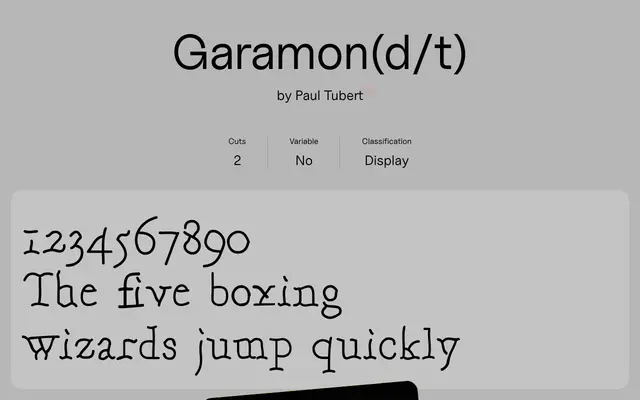
Garamon(d/t)
A two-cut display face by Paul Tubert that plays on the Garamond/Garamont naming dispute, available free under the WTFPL licence.
Paul Tubert's Garamon(d/t) arrives in two cuts and takes its name from the long-standing scholarly argument over whether the typeface we call Garamond should really be attributed to Claude Garamont. The WTFPL licence permits commercial use, modification and redistribution with minimal restrictions. It sits naturally in editorial and display contexts where a historically inflected serif is wanted without the cost of a commercial licence.
The foundry classifies this as Display; the name references both Garamond and Garamont, suggesting a playful historical riff on the classic old-style serif tradition, presented as a display cut.